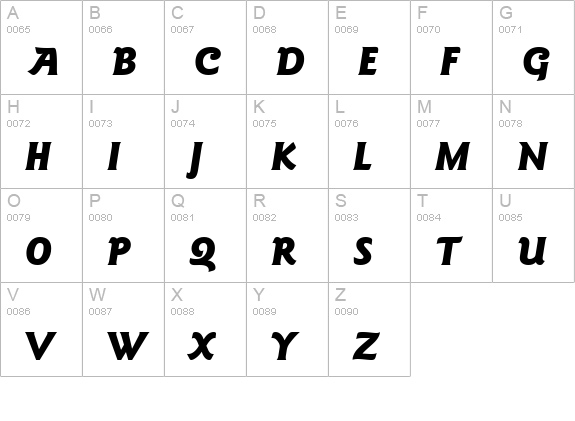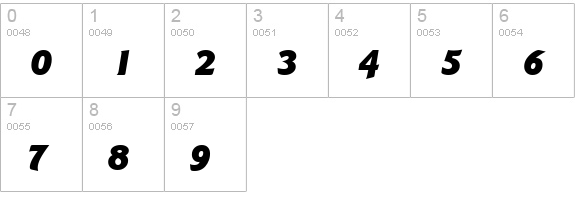
Goudy Sans Black Italic BT is a maximum-weight, dramatic, italic variant in the Goudy typeface family \xE2\x80\x94 well suited to maximum-impact headlines, posters, and packaging.
Goudy Sans Black Italic BT font is a bold and eye-catching typeface that exudes elegance and sophistication. Its slanted italic style adds a touch of dynamism and modernity to any design project. With its strong presence and distinctive character, Goudy Sans Black Italic BT font is perfect for headlines, titles, and emphasis in both print and digital media. The best part is that this stunning font is available for free download at FontsMarket.com. You can easily access and use Goudy Sans Black Italic BT to elevate your designs and make a bold statement. Don't miss out on this opportunity to enhance your creative projects with a premium quality font that is both stylish and impactful. Download Goudy Sans Black Italic BT today and take your designs to the next level!